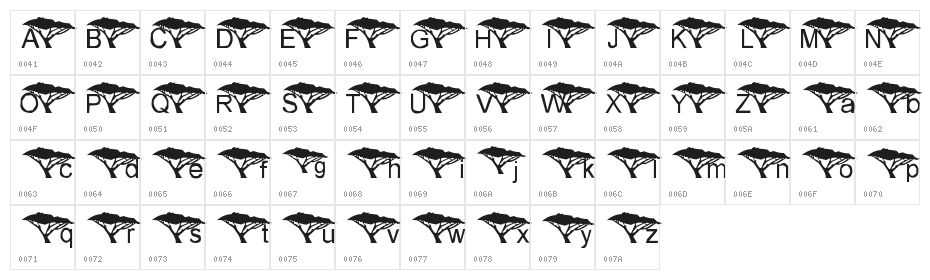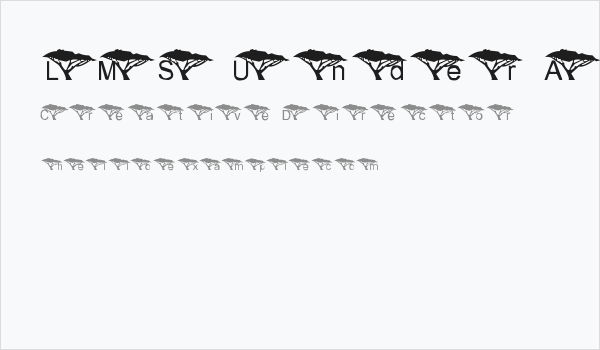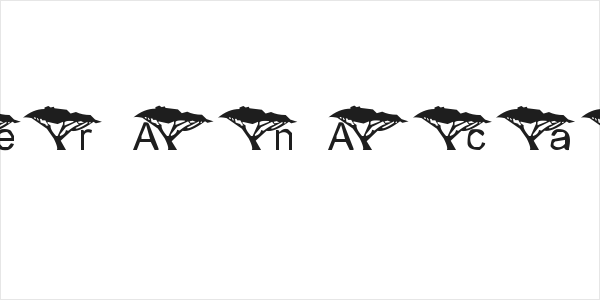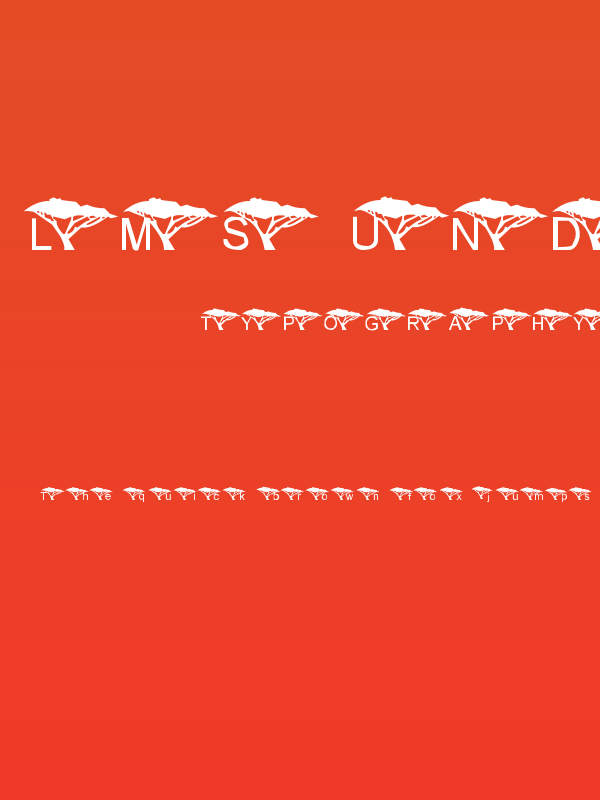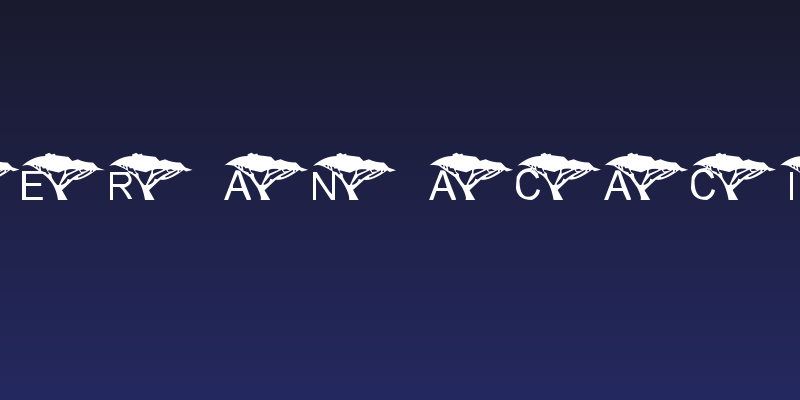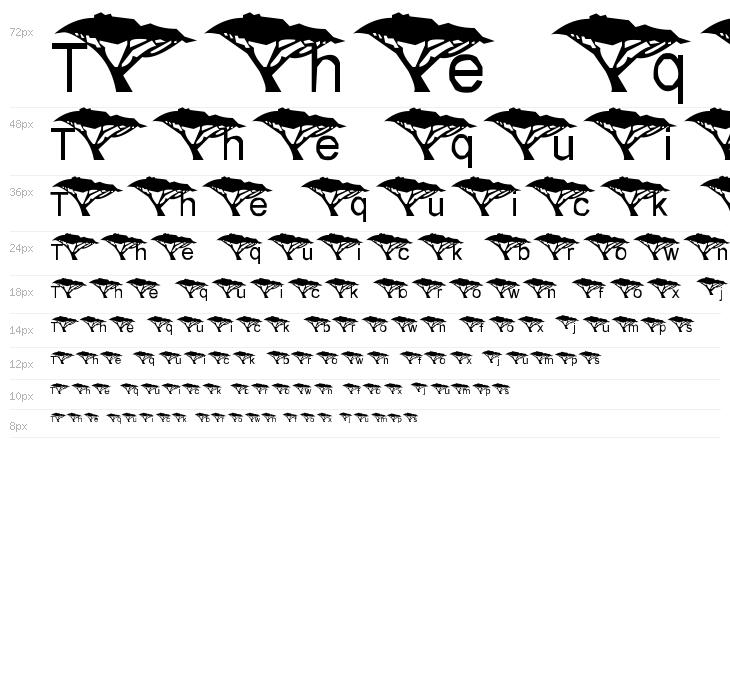
LMS Under An Acacia Tree Font
LMS Under An Acacia Tree Description
This font features a unique design where each character is topped with a silhouette of an acacia tree, creating a distinctive and thematic appearance. The letters are bold and clear, making them easily readable despite the decorative element. The acacia tree motif adds an exotic and natural touch, suitable for projects that aim to evoke a sense of nature or African landscapes. The font maintains a consistent style across uppercase and lowercase letters, as well as numbers and special characters, ensuring uniformity in design.
| Proposed Projects | Ideal for nature-themed posters, travel brochures, eco-friendly product packaging, and educational materials about African wildlife. |